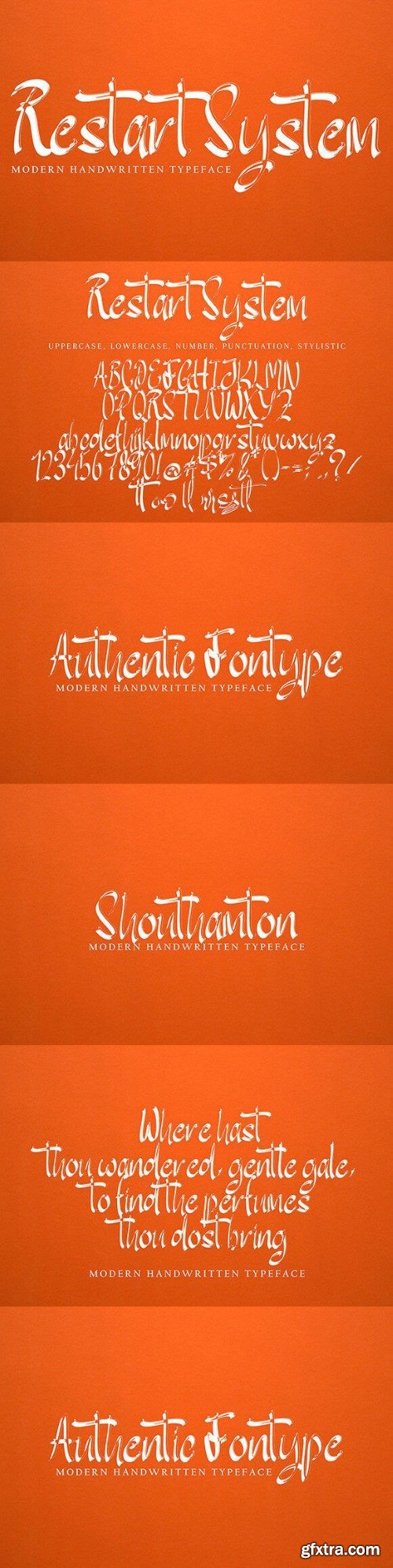
重启系统字体
Restart System with new style, this font will perfect for many different project ex: quotes, logo, blog header, poster, banding, letter, invitation, stationery, etc…